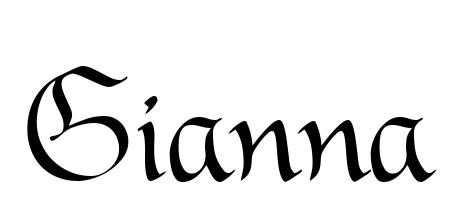
Gianna
By Peter Wiegel
Gianna: A flowing, elegant script font, reminiscent of calligraphy. Its letters possess a delicate grace, with subtle curves and a slight flourish at the beginning and end of each character, giving it a romantic and slightly whimsical feel. The "G" is particularly graceful, and the overall style is refined yet friendly.